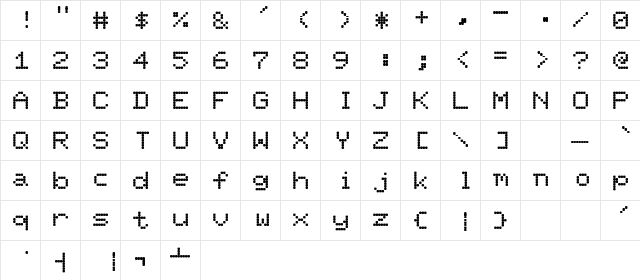
Delaware Regular Font Preview
Delaware Regular
Design Context for Delaware Typeface
Delaware is a composed and adaptable typeface that performs quietly and consistently across a wide range of design contexts.